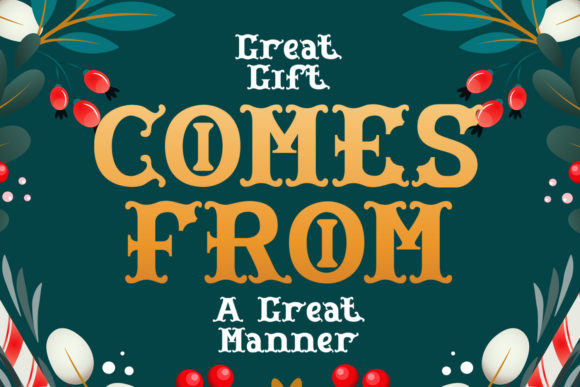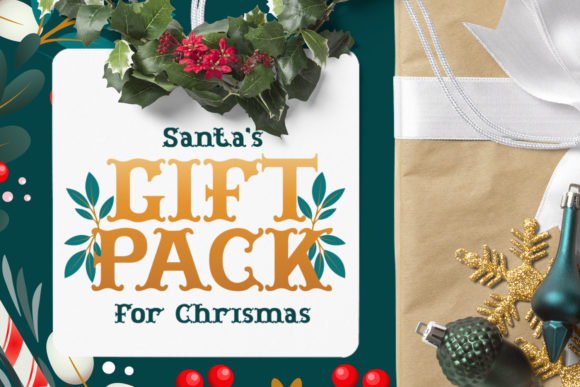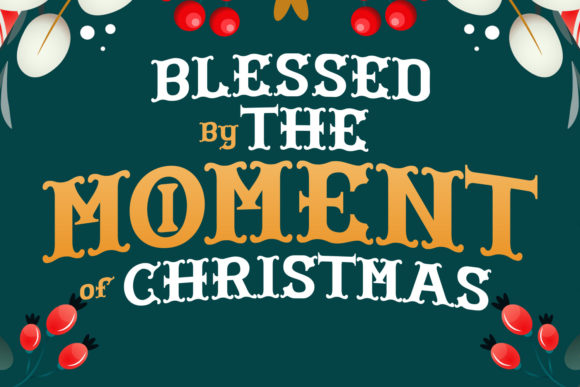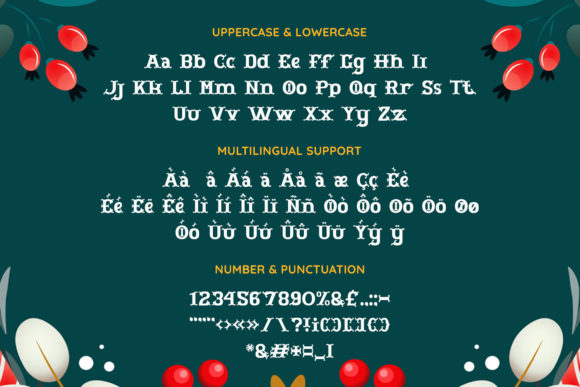
Unleash Your Creativity with the Hopper Font
Remember that moment when you’re working on a project, and you just can’t seem to find the right font to match your vision? You’ve tried countless combinations, but nothing seems to click. That’s when you stumble upon the perfect font, and everything falls into place. For designers, this is a moment of pure joy, and with the Hopper Font, you’ll experience it time and time again.
The Hopper Font is a bold and eye-catching display font designed to elevate any creation. Whether you’re working on a logo, a poster, or a social media graphic, this font has the potential to take your design to the next level. Its unique style and versatility make it a valuable asset to any designer’s library.
With the Hopper Font, you’ll be able to add a touch of sophistication and creativity to your designs, setting you apart from the rest. Its cool and bold aesthetic will make your projects stand out, and its ease of use will make it a go-to choice for all your design needs.
Hopper Font Key Features
- Unique Characteristics: Hopper Font features a unique blend of modern and vintage elements, with subtle texture and gradient effects that give it a distinctive look.
- Font Weight: Hopper Font is available in a range of weights, from Light to Bold, allowing designers to achieve the perfect balance of style and legibility.
Hopper Font Review
I’ve had the chance to work with the Hopper Font, and I must say it’s an interesting typeface. ✨ The rounded edges and subtle irregularities give it a friendly, approachable feel. It’s perfect for designs that require a sense of warmth and approachability. I particularly like how it works well in headings, adding a touch of personality to the layout.
However, there are some limitations to consider. ⚠️ The font can feel a bit cluttered when used in large blocks of text. This is because the rounded edges and irregularities can make it harder to read when there’s too much text on the screen. Additionally, the font might not be the best choice for designs that require precision or a sense of sophistication.
Here are some specific pros and cons:
- ✨ Friendly, approachable feel
- ✨ Works well in headings
- ⚠️ Can feel cluttered in large blocks of text
- ⚠️ May not be suitable for designs requiring precision or sophistication
Overall, I think the Hopper Font is a solid choice for designs that require a warm and approachable feel. Just be mindful of the limitations, and use it in moderation to avoid overwhelming the user.
Tips: Use the Hopper font to create eye-catching headlines and titles. Experiment with different font sizes and colors to add visual interest.
Tips: Use the Hopper font to create custom typography for logos, branding materials, or advertising campaigns.
Tips: Use the Hopper font to create engaging presentations, reports, or documents. Experiment with different font sizes and colors to add visual interest.
The Hopper font is ideal for:
1. Creating eye-catching headlines and titles.
2. Designing custom logos and branding materials.
3. Developing engaging presentations, reports, and documents.
4. Adding a touch of whimsy and personality to your designs.